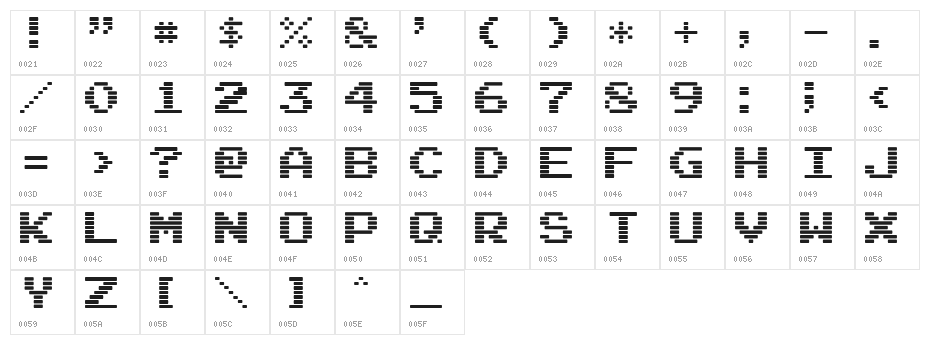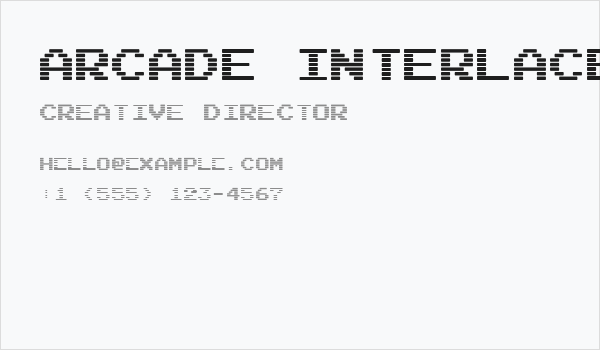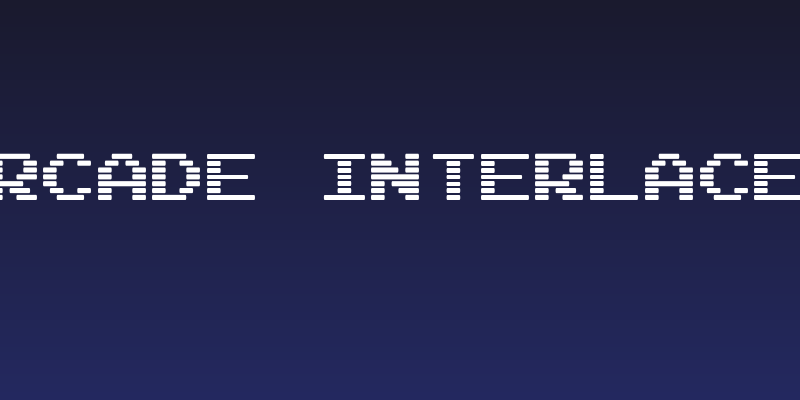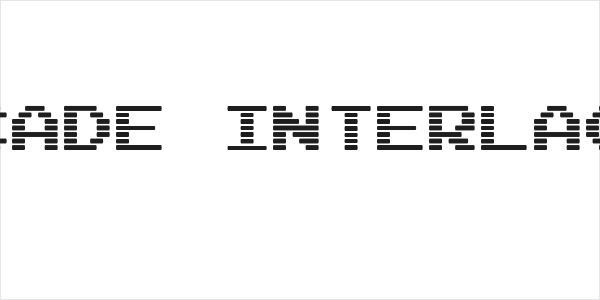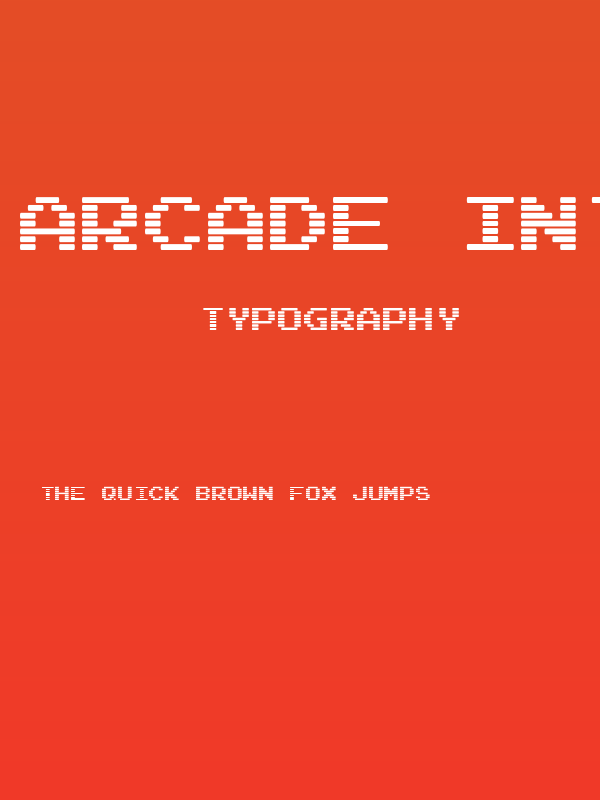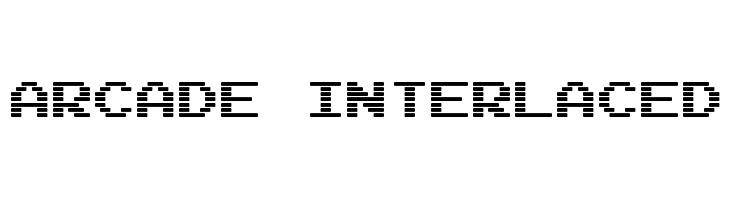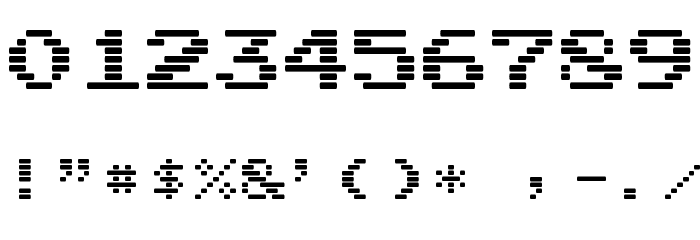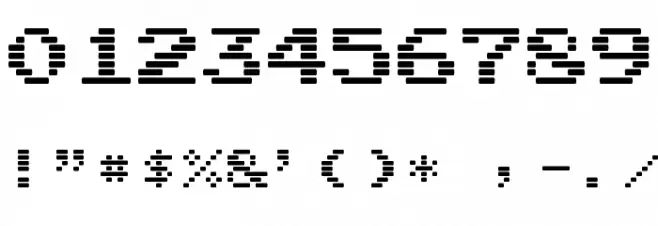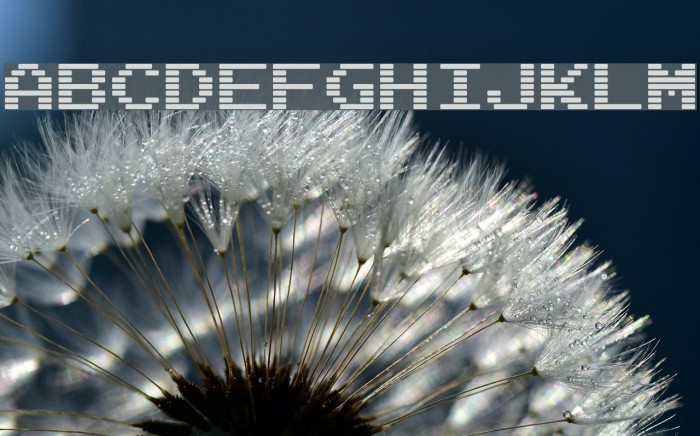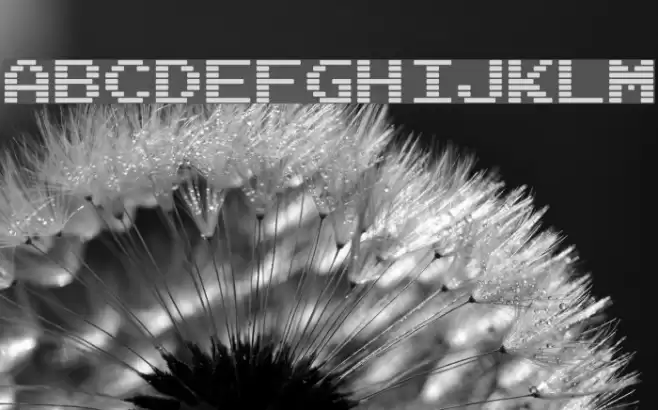
Arcade Interlaced Font
| समग्र शैली | Retro, Digital |
| उपयोग का मामला | Headlines, Logos, Posters |
| सुझाए गए प्रोजेक्ट | Perfect for video game designs, retro-themed posters, digital art projects, and any creative work that seeks to evoke a nostalgic gaming atmosphere. |